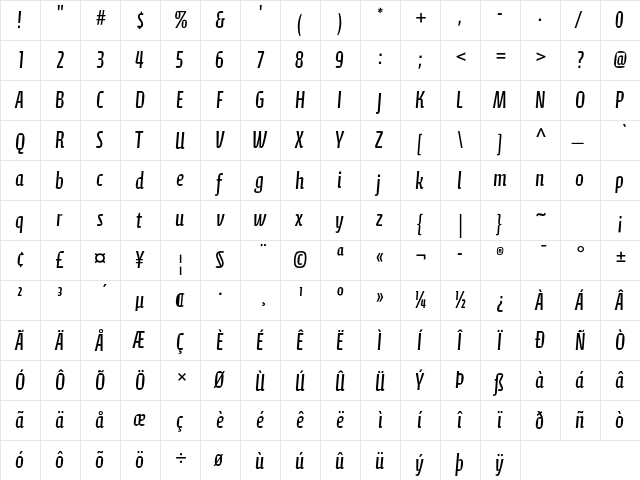
Calcite Pro Regular
| Designer | Akira Kobayashi |
Design Context for Calcite Pro Typeface
Calcite Pro takes a measured approach to typography — its balanced proportions and neutral character make it a reliable workhorse for both digital and print work.